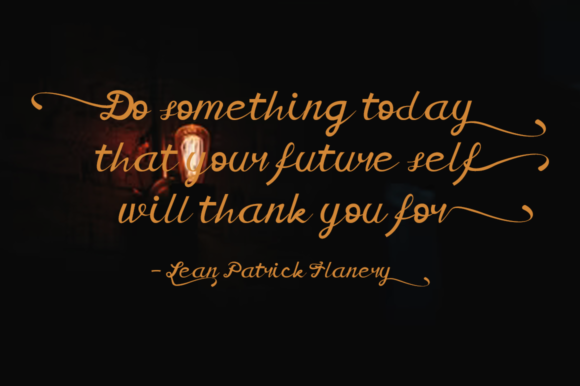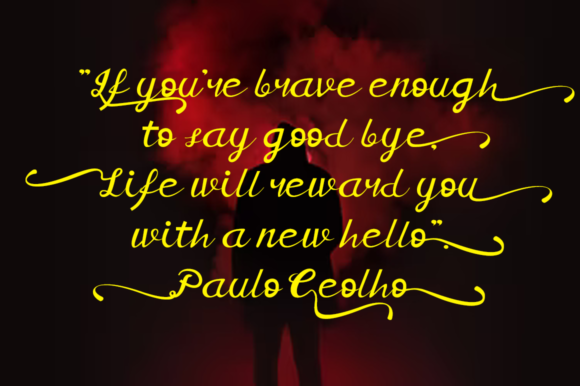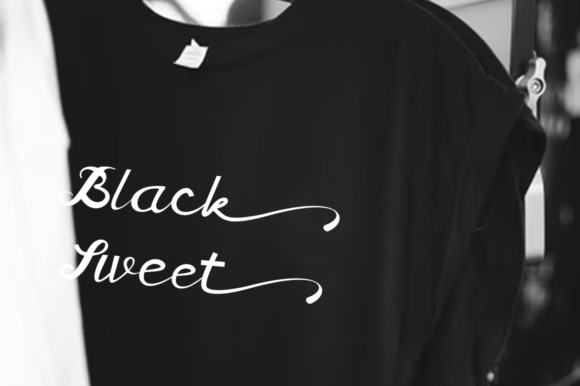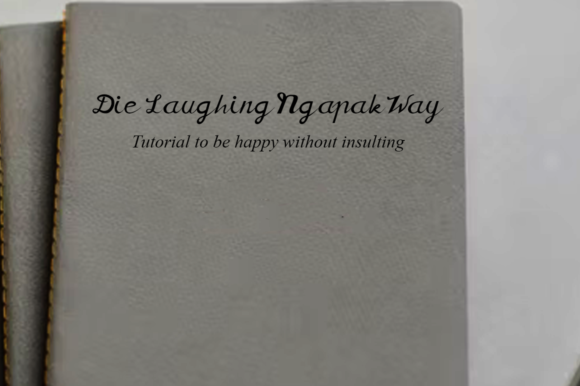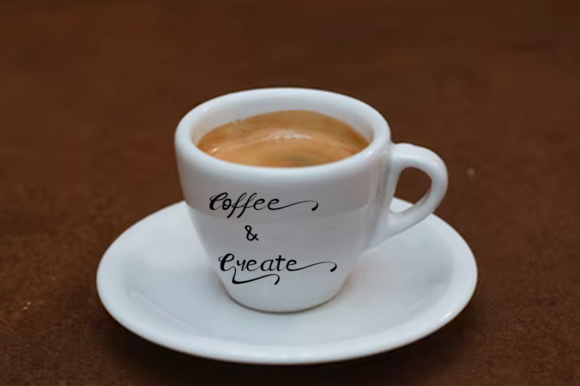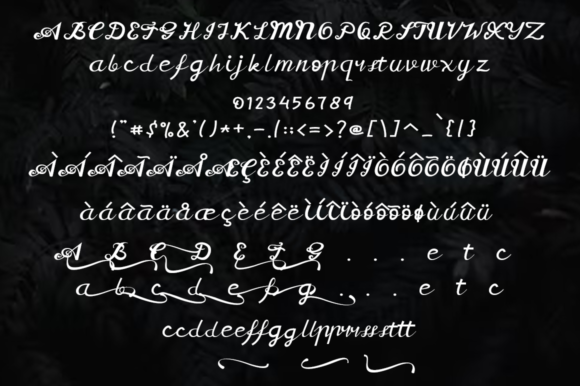
Mletre Font
About Mletre Font
Mletre is an elegant and distinct script font. It will add a luxury spark to any design project that you wish to create! This font is PUA encoded which means you can access all of the amazing glyphs and ligatures with ease!